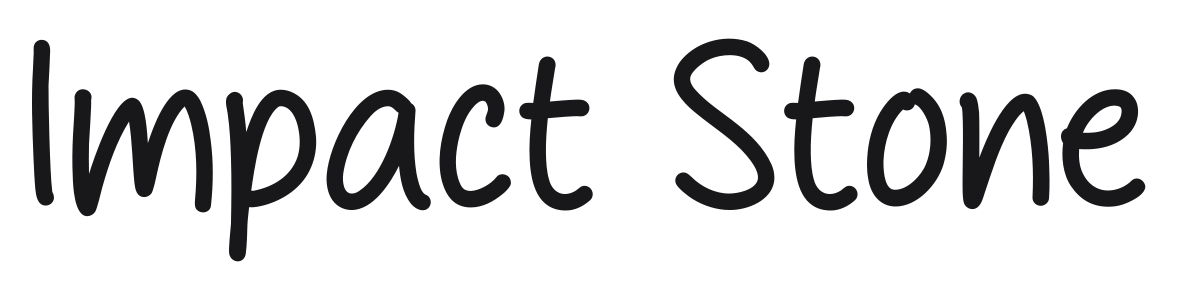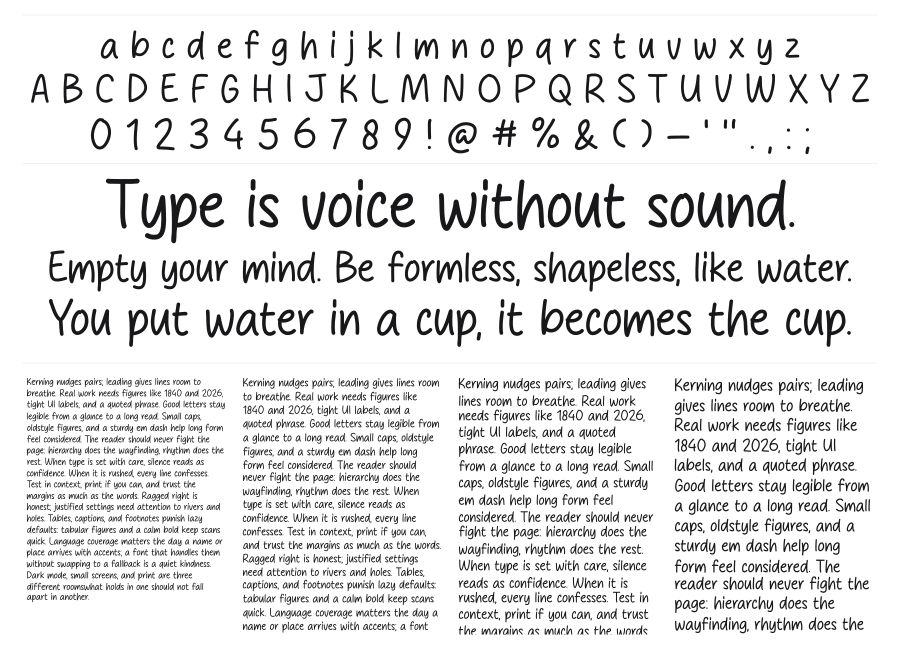
Impact Stone
Impact Stone is a casual handwritten font with rounded, flowing strokes and a natural pen-written feel. Its gentle irregularities and soft terminals give it genuine warmth without tipping into novelty territory. Works well wherever a human, unpretentious voice is needed.